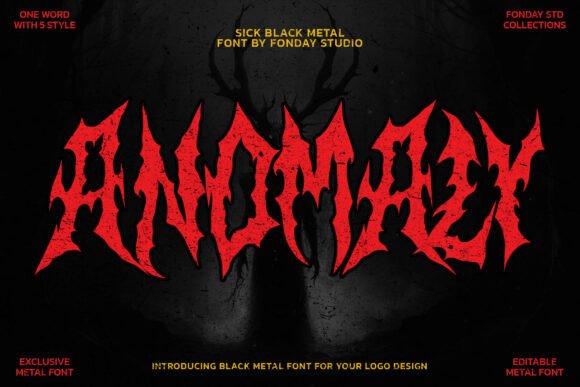
Anomaly Font: A Bold Choice for Dark and Loud Designs
Fonts are more than just letters on a page—they’re the visual heartbeat of your message. For those who work in or around extreme music, horror visuals, or edgy branding, finding the right font can be the difference between blending in and standing out. Enter Anomaly Font, a razor-sharp black metal typeface that captures the essence of chaos with its scorched, jagged letterforms and aggressive silhouette. Designed to channel the raw energy of underground music scenes, this font isn’t just another tool in your design kit; it’s a statement.
What Makes Anomaly Font Unique?
Anomaly is not a typical display font. It's a carefully crafted typographic weapon built for impact. Its origins lie deep in the world of black metal, where aesthetics often mirror the intensity of the sound itself. The font features five destructive styles within a single word—each one offering a different kind of visual violence, from flame-scorched edges to splattered and shredded textures. This level of variation allows designers to maintain consistency while still tailoring their visuals to specific moods or themes.
The letterforms themselves are unapologetically brutal. Think jagged serifs, uneven spacing, and a sense of controlled disarray that screams authenticity. These characteristics make Anomaly Font ideal for projects that need an immediate emotional punch without sacrificing readability—or at least legibility enough to convey a powerful message.
Why It Matters for Designers and Brands
In today’s competitive creative landscape, standing out is essential. Whether you're designing an album cover, a festival poster, or merchandise for a death metal band, the font you choose sets the tone before a single note is heard. Anomaly Font gives you the ability to communicate that tone instantly and effectively.
Consider how many times we’ve seen generic fonts used in niche genres, diluting the message they were meant to support. With Anomaly, there's no risk of missing the mark. Its design aligns with the subculture it represents, ensuring your brand or project feels genuine and immersive.
Real-World Use Cases Where Anomaly Shines
Let’s dive into some practical scenarios where Anomaly Font could enhance your output:
- Metal Band Logos: Creating a logo for a new black metal band? Anomaly brings the necessary edge and intensity to match the genre’s vibe. Its aggressive character helps establish identity quickly, making it easier for fans to recognize and remember the band.
- Album Artwork: The first thing listeners see when browsing through albums is the title. Using Anomaly ensures that your title grabs attention immediately, setting the stage for the auditory experience ahead.
- Festival Branding: Music festivals, especially those focused on underground or extreme genres, rely heavily on visual storytelling. Anomaly Font can help craft posters, banners, and promotional materials that scream “unfiltered chaos,” aligning perfectly with the event’s atmosphere.
- Merchandise Design: From t-shirts to vinyl sleeves, merch needs to reflect the spirit of the music. Anomaly adds a visceral quality that resonates with fans looking for bold, authentic designs.
- Horror and Sci-Fi Projects: Beyond music, Anomaly works well in film, game, or book titles for horror and sci-fi genres. Its chaotic look fits naturally with narratives involving doom, destruction, or dystopia.
How Anomaly Font Supports Creative Efficiency
Designers often find themselves sifting through countless fonts to find the perfect match for a project. Anomaly Font streamlines this process by offering multiple variations in one package. You don't have to switch between fonts to achieve contrast—you can use all five styles cohesively, knowing they were designed to work together seamlessly.
This makes it particularly useful for time-sensitive tasks like last-minute poster edits or packaging a release for a tight deadline. Instead of compromising on style due to time constraints, you can leverage Anomaly to deliver high-impact visuals without extra effort.
Who Should Consider Using Anomaly Font?
If you’re part of a niche but passionate community, Anomaly Font might just be what you need to elevate your content. Here are some groups that would benefit most:
- Music Producers and Artists: Especially those in black metal, deathcore, or noise genres, where typography plays a key role in the overall aesthetic.
- Branding Professionals: Looking to create memorable identities for events, bands, or media that thrive on intensity and emotion.
- Independent Publishers: Crafting covers for dark fiction, poetry, or zines that demand a strong visual presence.
- Freelancers and Hobbyists: Anyone working on passion projects related to extreme music, horror, or alternative culture will appreciate the versatility and depth Anomaly offers.
- Marketing Teams: Promoting products or services that appeal to a younger, alternative audience can be made more effective with fonts that speak directly to that demographic.
Thoughtful Observations on Fit and Limitations
While Anomaly Font is a powerful choice, it’s not a universal solution. Its heavy, chaotic style may not suit every project. For instance, using it in formal business documents or minimalist web interfaces would likely clash with the intended tone. However, in the right context—such as a gritty documentary poster or a punk-inspired podcast intro—it becomes indispensable.
It's also worth noting that because of its aggressive nature, Anomaly may require some tweaking to ensure legibility in certain applications. While the font is designed to be readable, the sheer intensity of its forms can sometimes overwhelm smaller text sizes or dense layouts. Always test how it looks across various platforms and scales before finalizing your design.
Strengthening Communication Through Visual Language
Typography is a form of visual language. When done right, it communicates mood, intent, and personality faster than words ever could. Anomaly Font does exactly that. It speaks to a specific audience—one that values distortion over clarity, rebellion over conformity.
Imagine a poster for a local metal show. If you pair Anomaly with subtle background textures and minimal text, you’re not just advertising an event; you’re creating a piece of art that embodies the genre. That’s the kind of communication that builds loyalty and engagement. It’s not just about being loud—it’s about being understood.
A Practical Recommendation for Best Results
To maximize the effectiveness of Anomaly Font, consider using it in combination with other complementary elements. Pair it with high-contrast colors, such as blood-red on charcoal-black, or integrate it with abstract textures like static overlays or digital glitches. These combinations amplify the font’s natural aggression, making your designs feel even more immersive.
Additionally, since it comes with five distinct styles, you can layer them creatively. One style might serve as the headline, while another functions as a tagline or subtitle. This layered approach keeps your design dynamic without introducing unrelated fonts that might disrupt the visual harmony.
Where Can You Get Started with Anomaly Font?
If you're intrigued by the potential of Anomaly Font, the next step is to explore how it integrates into your workflow. Start by downloading a trial version if available, and test it across a few sample projects. See how it performs in print versus digital formats, and whether it complements your existing brand assets or clashes with them.
Once you're comfortable with its capabilities, begin incorporating it into your toolkit. For example, use it for:
- Creating eye-catching headlines for YouTube videos or social media posts.
- Adding texture to website headers or landing pages for music-related content.
- Enhancing the visual identity of a podcast or blog focused on dark culture or extreme music.
Comparing Alternatives: When to Choose Something Else
No font is perfect for every situation. While Anomaly Font excels in chaotic, intense environments, there are moments when a cleaner, more versatile option might be better. If you're designing something that requires long-form readability or accessibility compliance, for example, you’ll want to pair Anomaly with a more neutral body font rather than using it exclusively.
That said, alternatives like Rage Italic or Blade Runner offer similar aesthetics but lack the refined flexibility and cohesive styling that Anomaly provides. Before committing, compare a few options side by side to determine which best suits your specific needs.
Final Thoughts on Choosing the Right Tool for the Job
Fonts shape perception. They influence how your audience sees your work—even before they understand the message. Anomaly Font is a tool that bridges the gap between concept and execution, especially in fields where darkness and distortion are central themes.
Its value lies not only in its appearance but also in the efficiency it brings to the design process. By offering five styles in one, it eliminates the guesswork of font pairing and allows for deeper creative exploration. And for professionals who understand the importance of visual alignment, Anomaly is more than a font—it’s a strategic asset.
So if you're working on a project that demands a primal scream in visual form, give Anomaly Font a chance. Let it tear through the silence and leave a mark.